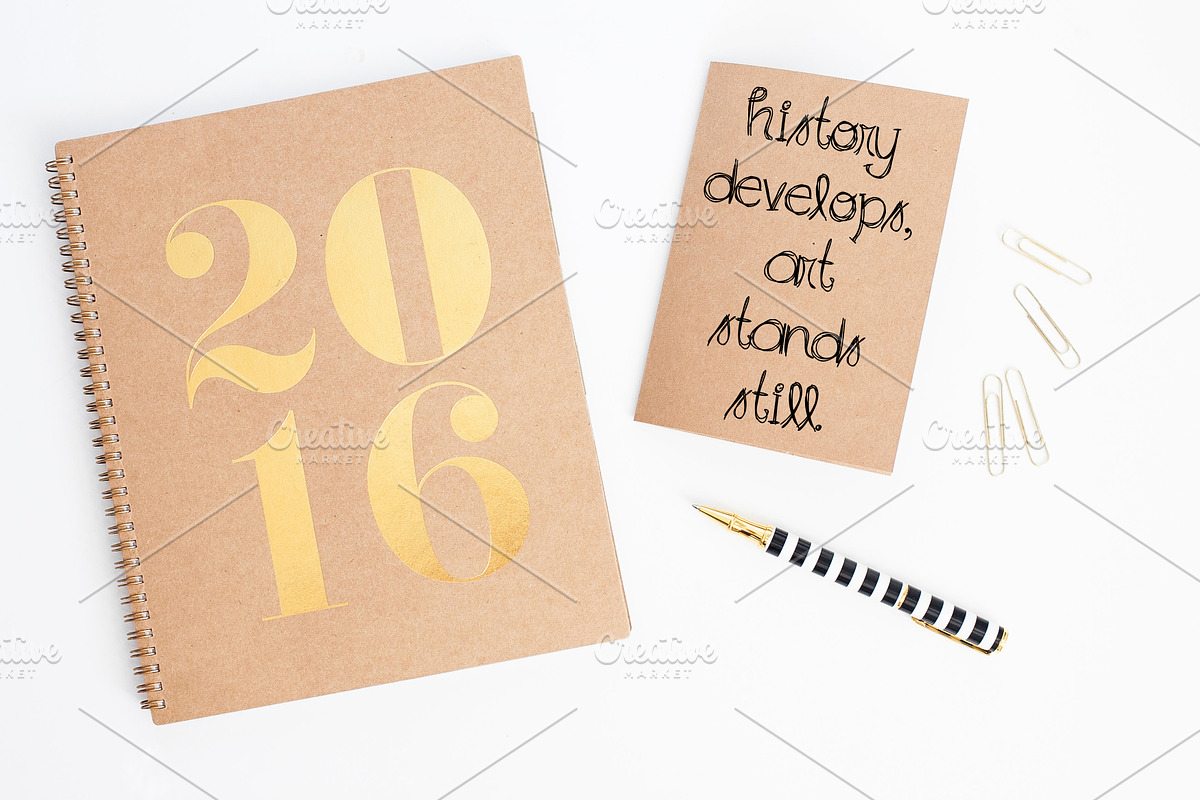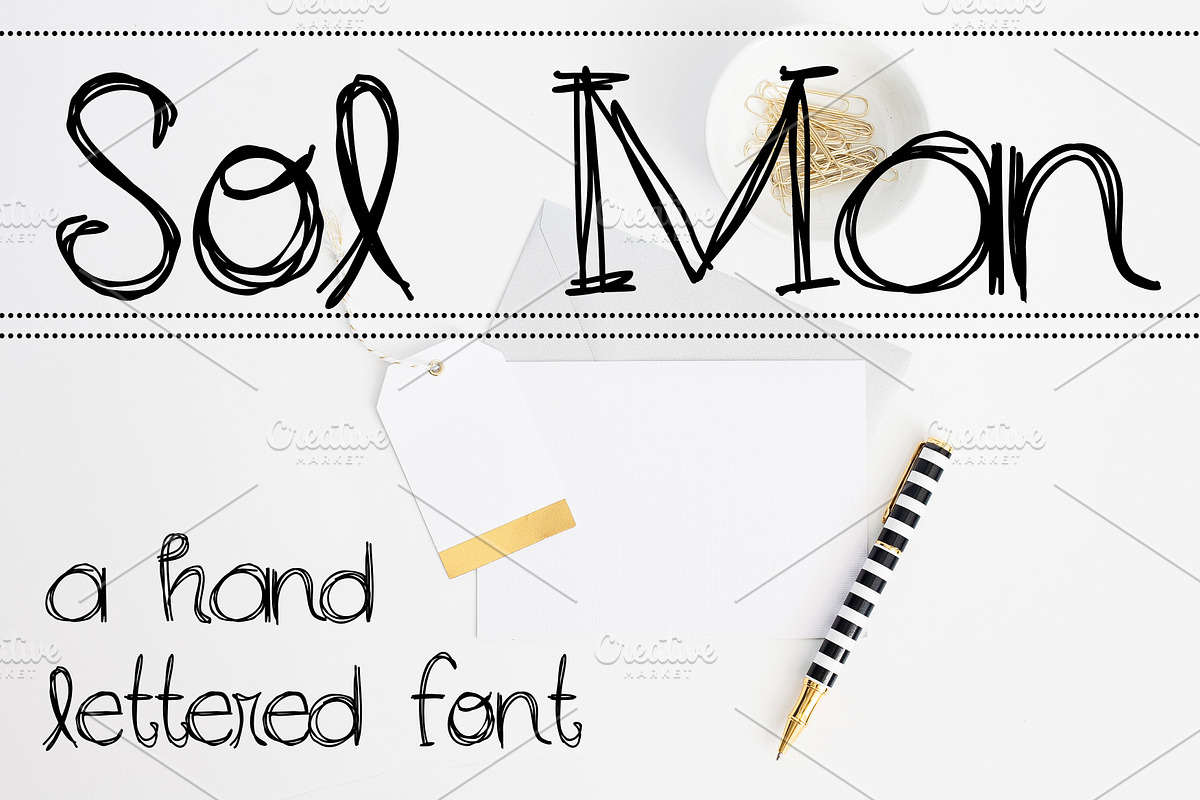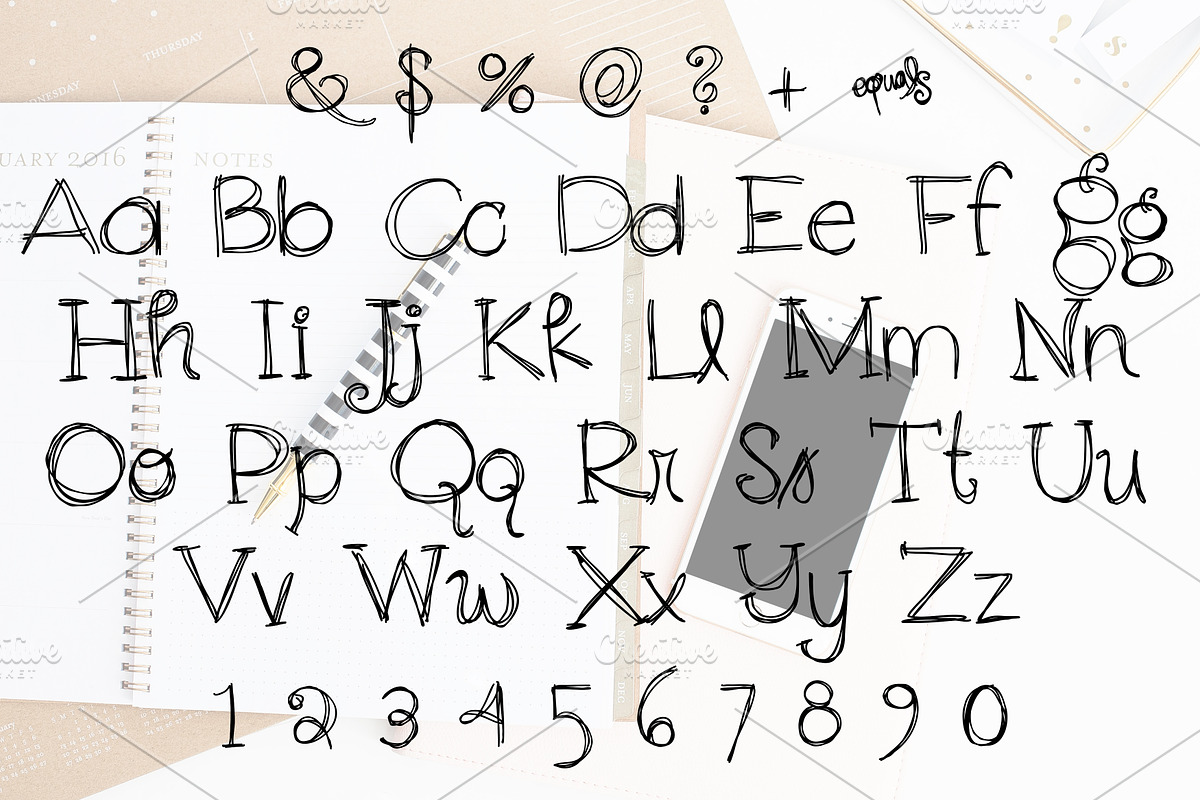
SOL MAN Hand Lettered Font
Sol Man is a little outgoing, a little quirky, and perfect for any project! Available in a TTF file with a full alphabet, numbers, and symbols.